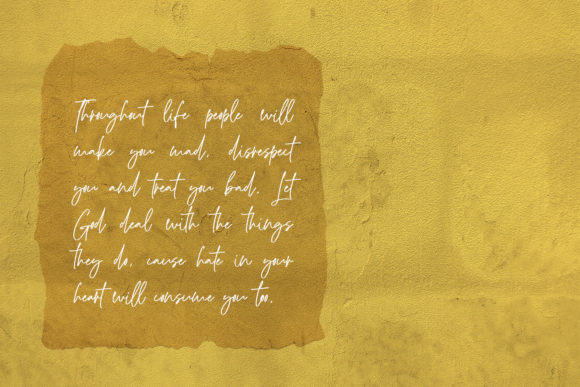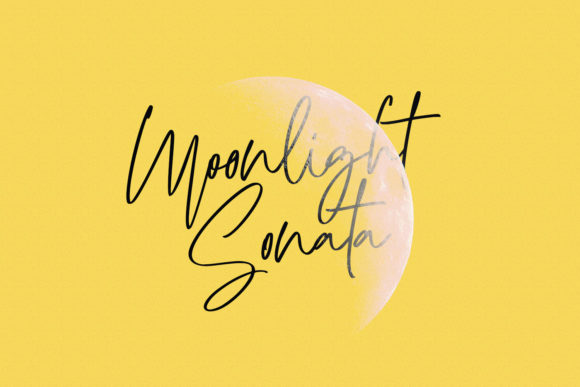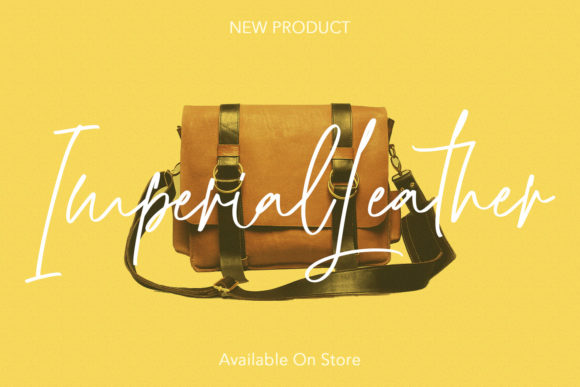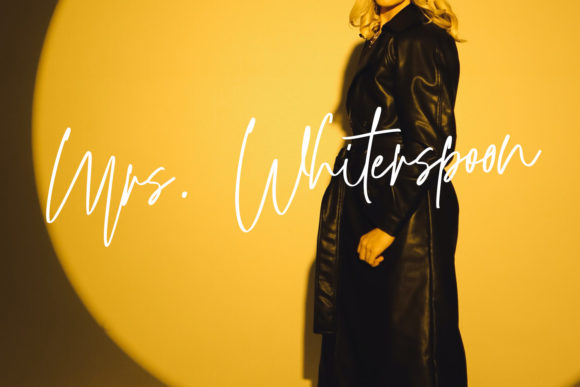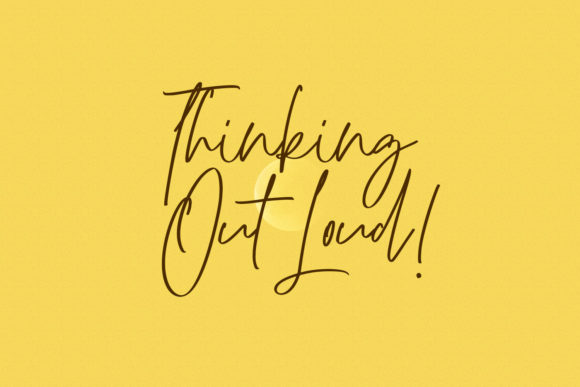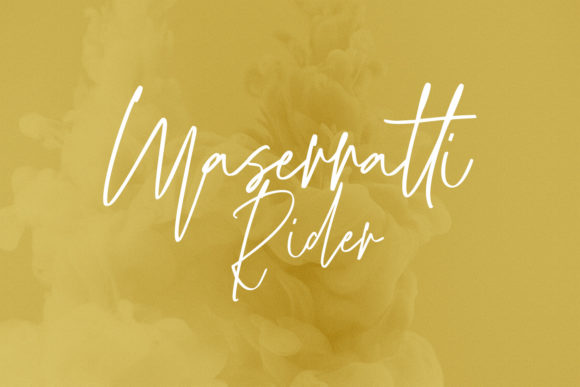
Introduction to Mustardmoster Script Font
As a designer, you’ve probably had that moment when you’re working on a creative project, and you’re stuck on finding the perfect font to convey the emotions you want to express. The search can be endless, but sometimes, it’s the most unexpected discovery that makes all the difference. For those who’ve been on the hunt, we’re excited to introduce you to the Mustardmoster Script Font – a stylish and laid-back script font that’s about to become your new go-to design resource.
With its wide range of applications, from greeting cards to headlines, this high-quality font is guaranteed to add a romantic feel to your next project. Whether you’re working on a free download or a paid design, the Mustardmoster Script Font is a valuable addition to any designer’s toolkit. And the best part? It’s available with a transparent background, making it easy to use in any design setting.
Key Features of Mustardmoster Script Font
- Unique, hand-drawn design with a touch of elegance, perfect for creative projects requiring a high-quality design resource.
- Comes with a transparent background, allowing for seamless integration with any design or image.
- Includes 200+ glyphs, including uppercase and lowercase letters, numbers, and punctuation marks.
- Designed to be highly legible at various font sizes, from 12px to 72px, making it suitable for a wide range of creative projects.
Honest Review: Mustardmoster Script Font
I recently stumbled upon the Mustardmoster Script Font while searching for the perfect design resource for a creative project. I must say, it did not disappoint! ✨ This font is perfect for adding a touch of elegance and sophistication to any design, from wedding invitations to branding materials.
- High quality: The font is of extremely high quality, with smooth lines and precise letterforms that make it perfect for both digital and print designs.
However, I do have to mention a few limitations: ⚠️ The font is only available in a single style, which may not be suitable for projects that require a lot of customization. Additionally, the font may not be compatible with all operating systems or software.
Overall, I’m really impressed with the Mustardmoster Script Font. It’s a high-quality design resource that’s perfect for any creative project. Whether you’re a seasoned designer or just starting out, I highly recommend giving it a try.
Using Mustardmoster Script Font in Creative Projects
Mustardmoster Script Font is ideal for creative projects, such as:
– Logos and branding materials
– Invitations and event graphics
– Social media graphics and posts
– Digital signage and displays